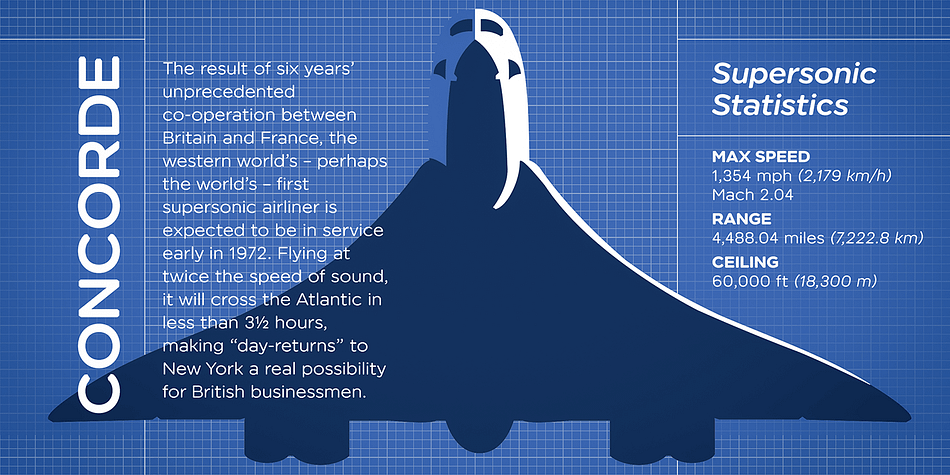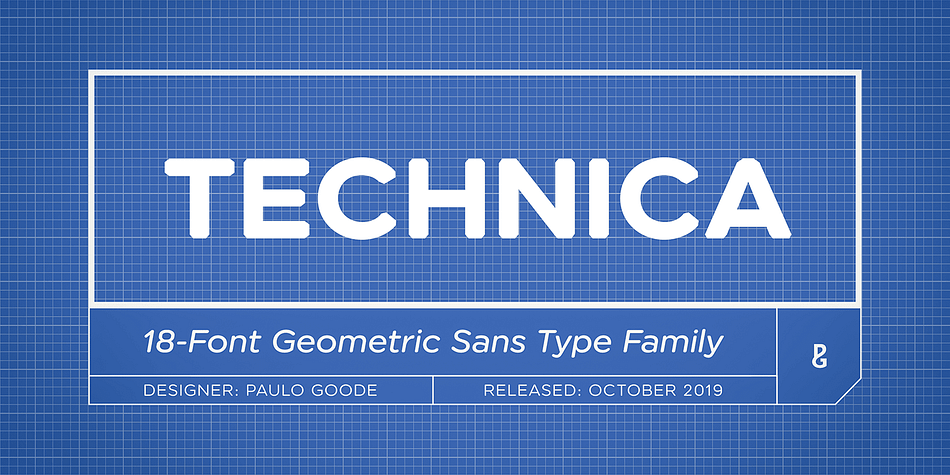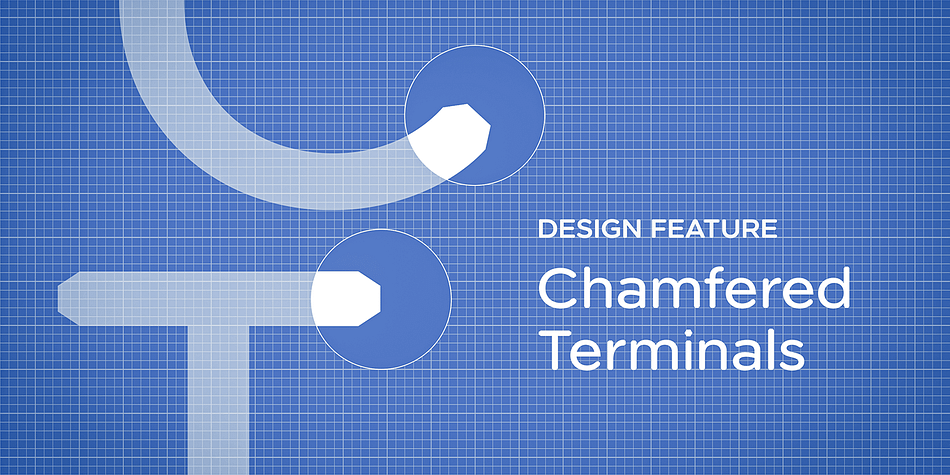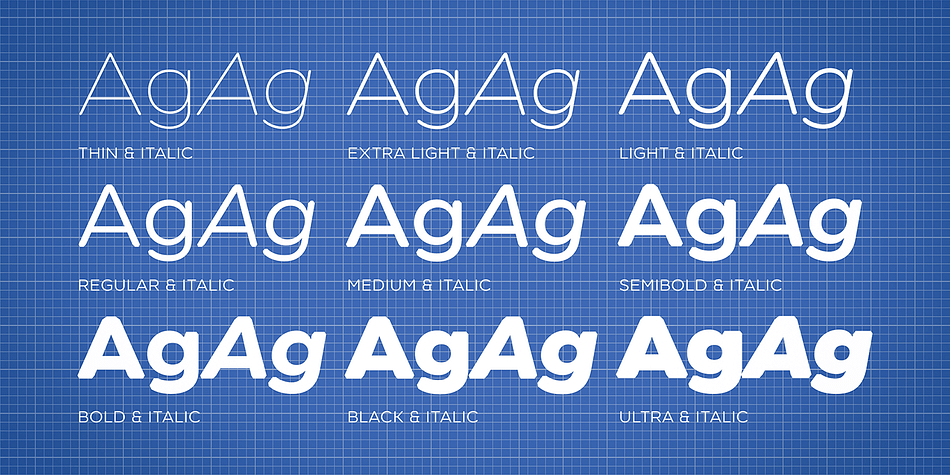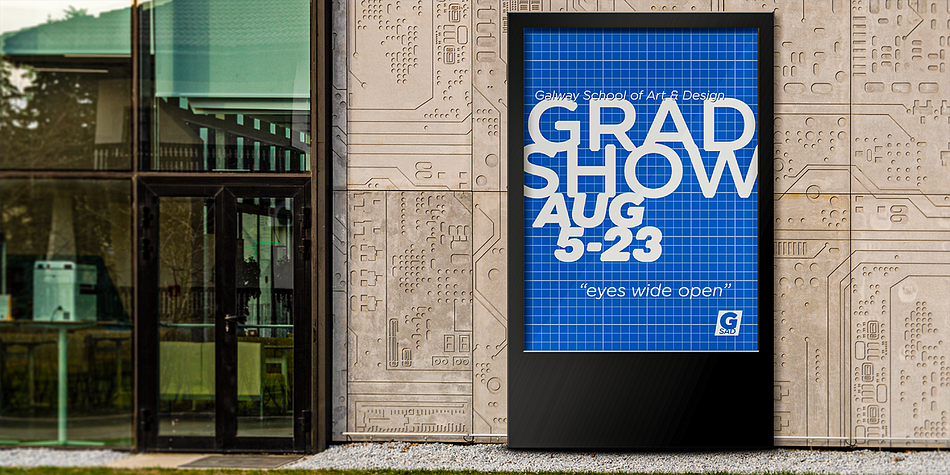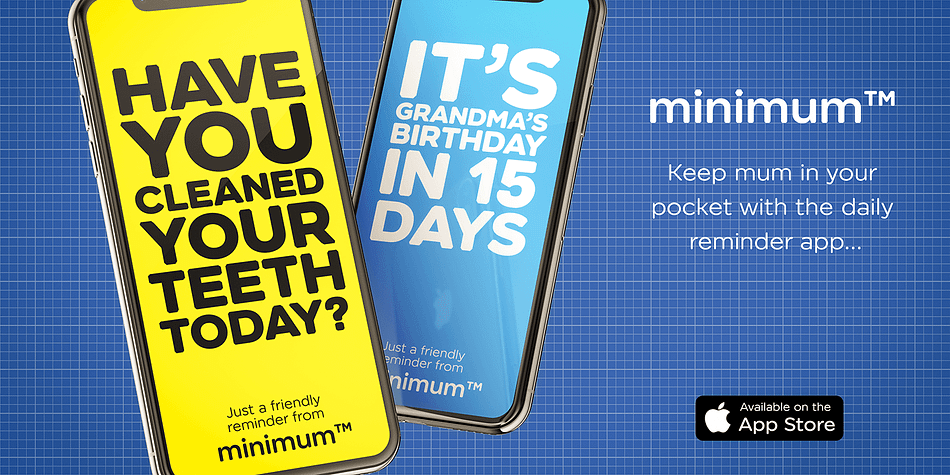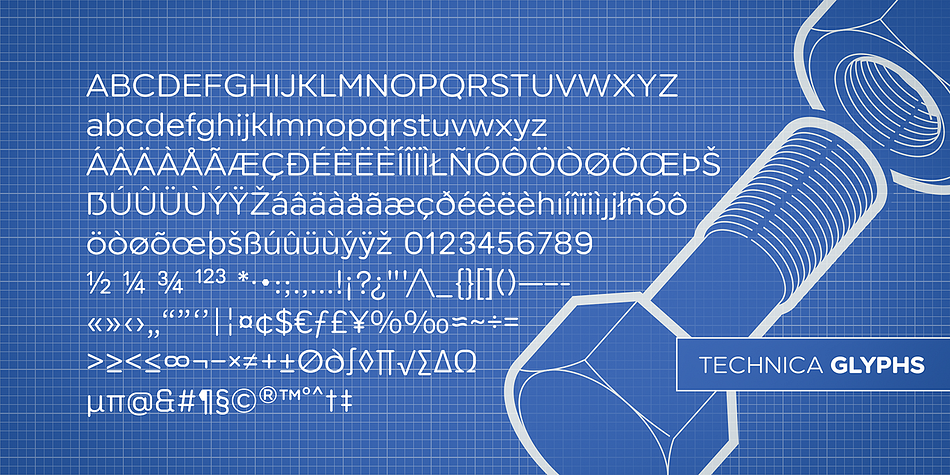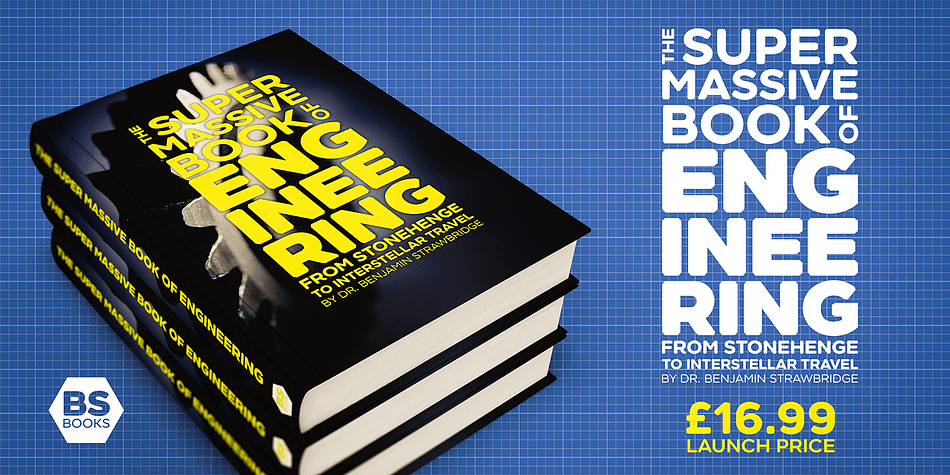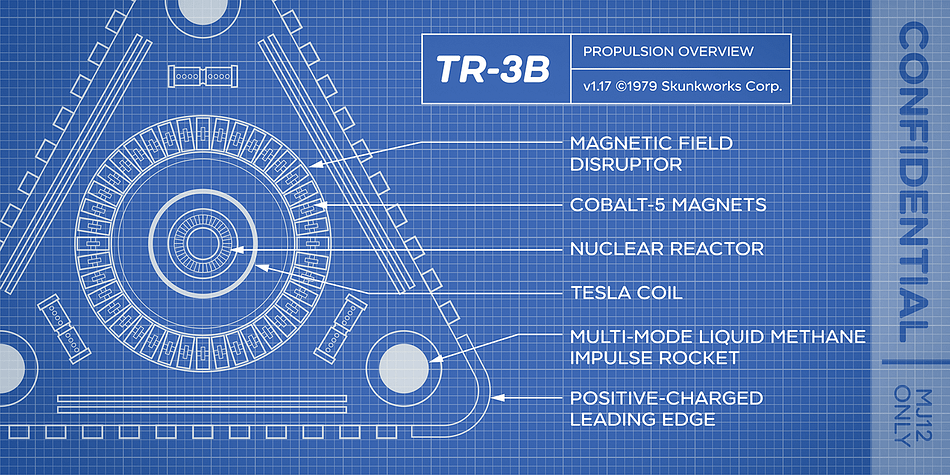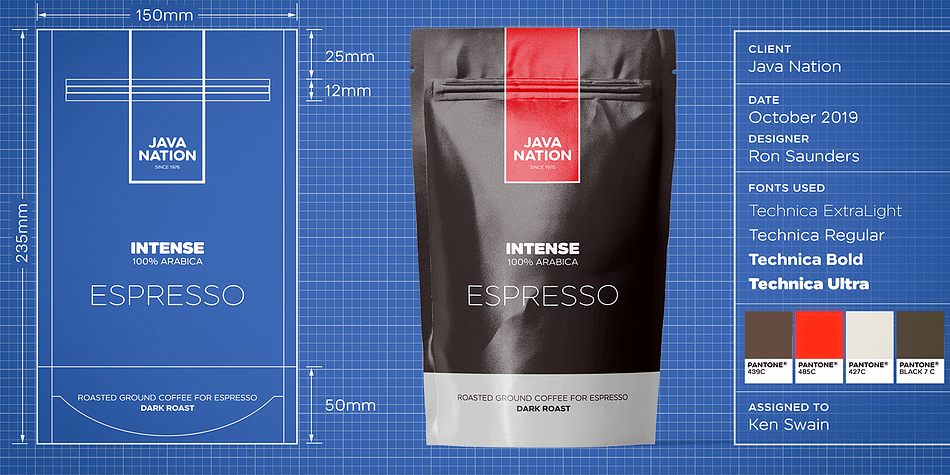
Designed by Paulo Goode, Technica is a sans serif font family. This typeface has eighteen styles and was published by Paulo Goode.
Do you remember a typeface called Meccanica? I didn’t think so. Well, it was pretty unique – too unique for most people’s tastes it seems. Anyway, this is Technica, Meccanica’s more conservative little brother. Essentially, this typeface is a geometric sans that retains the structure of Meccanica, but tones down most of the hexagonal elements. The chamfered terminals are retained, but sharpened, and a more technical approach is instilled with each glyph being fine-tuned for optimal performance and aesthetics. The result is a refined sans serif that has enough personality to differentiate itself from the myriad of others available – undoubtedly, Technica will deliver a distinctive tone to your own typographic designs.